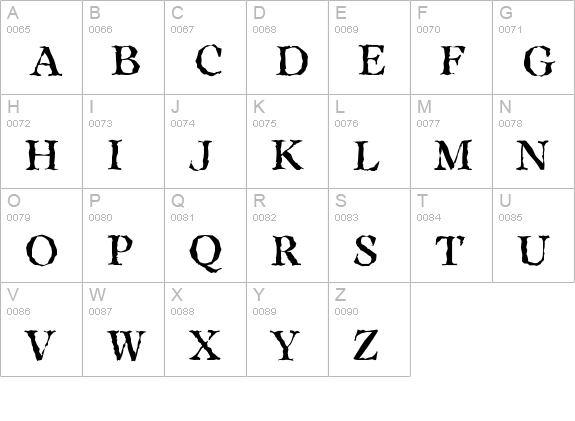
LeamingtonRandom-Regular Font Details
LeamingtonRandom-Regular is the standard, neutral variant in the LeamingtonRandom typeface family \xE2\x80\x94 well suited to general body text, paragraphs, and standard typographic work.
LeamingtonRandom-Regular font is a charming and versatile typeface that exudes a sense of creativity and playfulness. Its irregular and hand-drawn style adds a unique touch to any design project, making it perfect for branding, posters, packaging, and more. The font features a mix of uppercase and lowercase letters with varying weights and styles, creating a dynamic and engaging visual appeal. Best of all, LeamingtonRandom-Regular font is free to download at FontsMarket.com, allowing designers and creatives to access this delightful typeface without any cost. With its whimsical aesthetic and easy accessibility, LeamingtonRandom-Regular font is sure to become a go-to choice for adding a touch of personality to your designs.